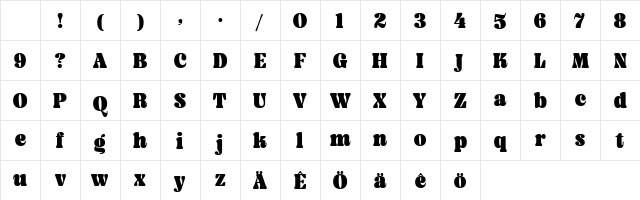
Complete Malrin DEMO Regular glyph index. Displaying only characters natively supported by Malrin DEMO Regular font.
Malrin DEMO is a composed and adaptable typeface that performs quietly and consistently across a wide range of design contexts.
Who designed the Malrin DEMO Regular font?